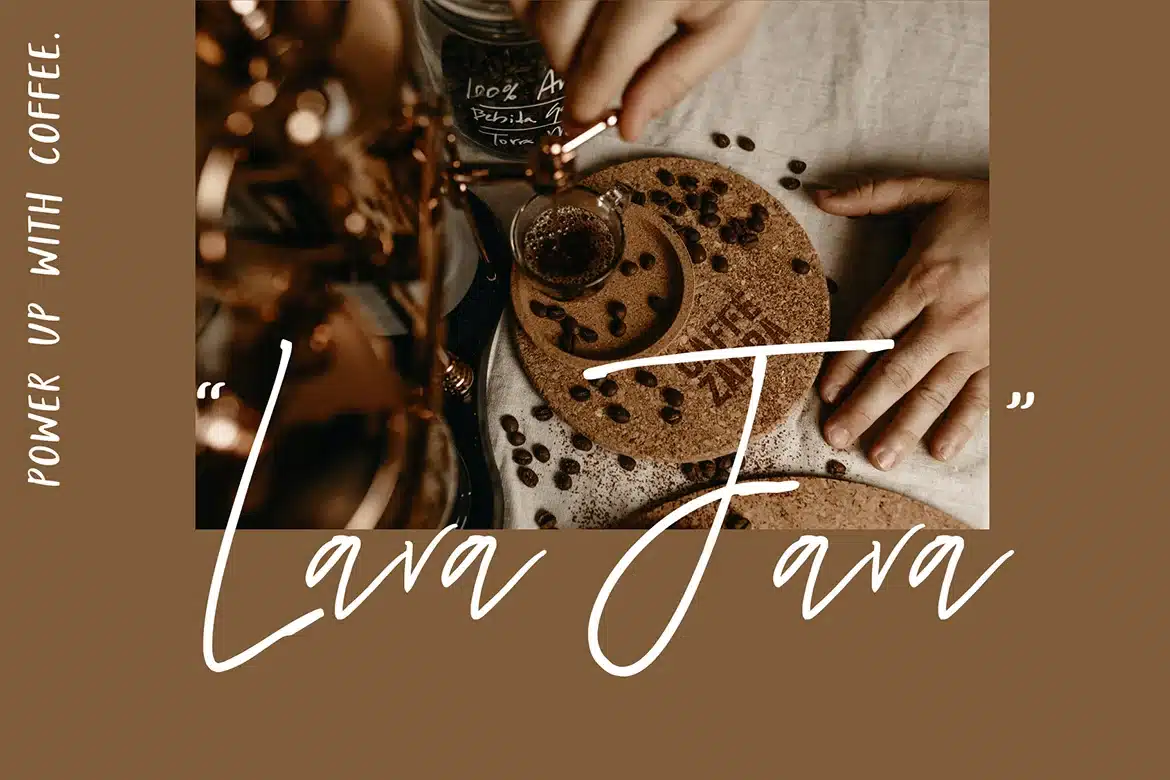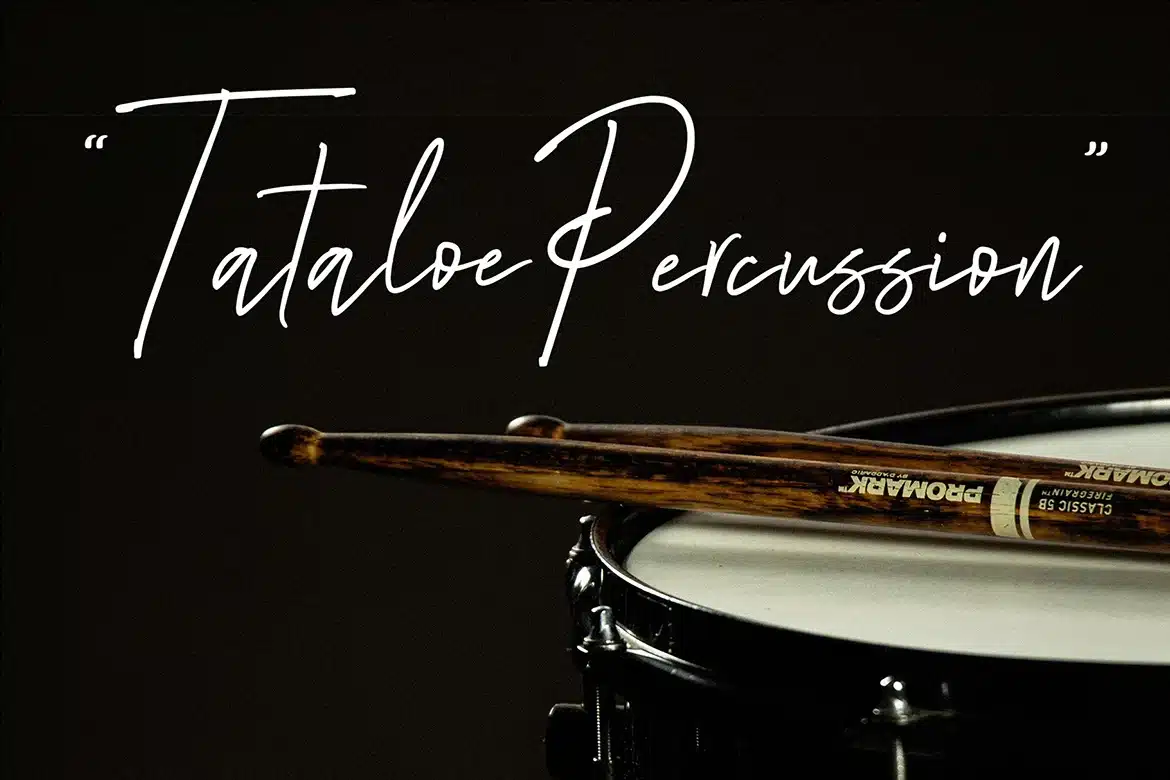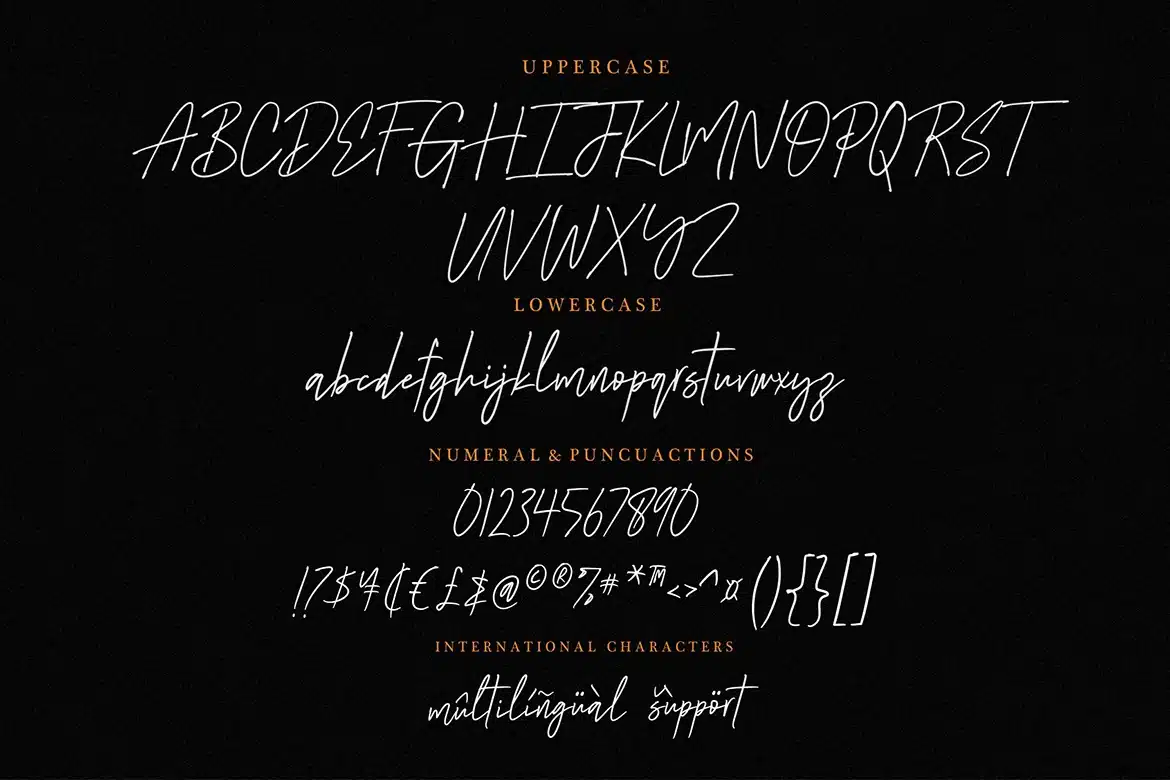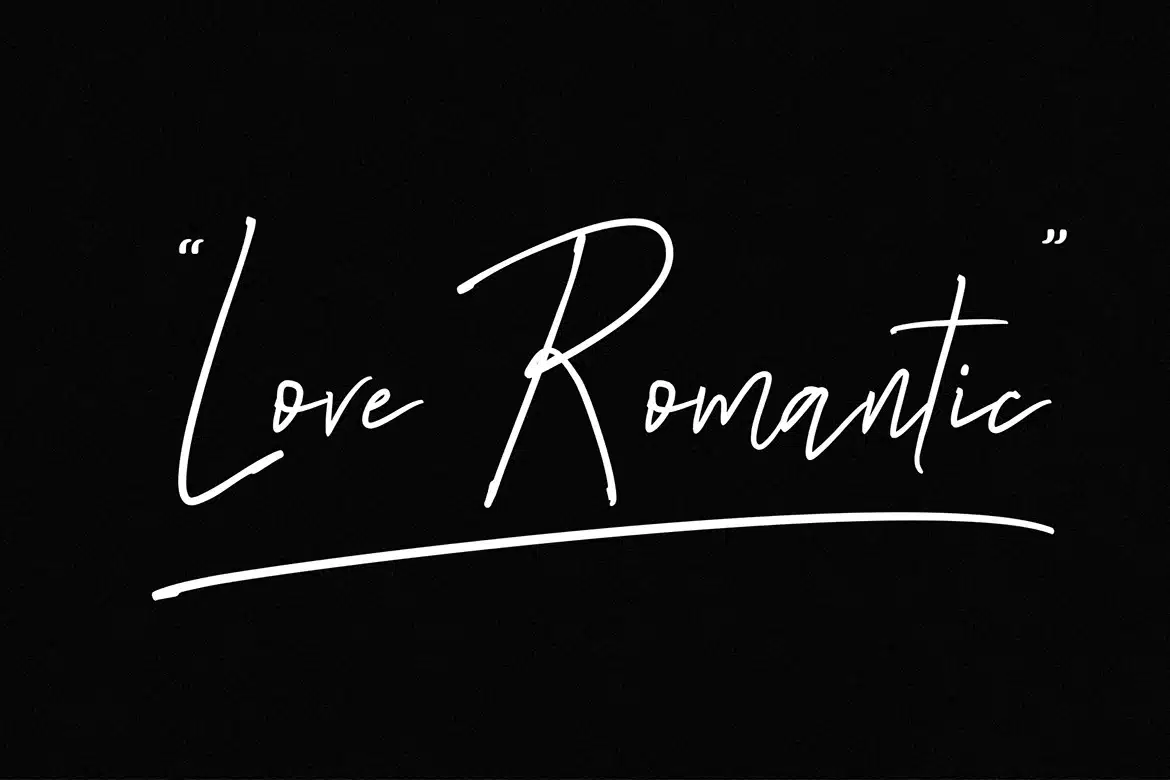
Blind Dates | Modern Signature Font
Blind Dates is a new modern signature font.
This stunning signature script font is a elegant, classy, stylish and perfect for any awesome projects that needs a handwritten touch.
Blind Dates Signature is great for wedding invitation card designs, logotypes, business card designs, advertisements, product designs, stationery, product packaging, quotes and so on.